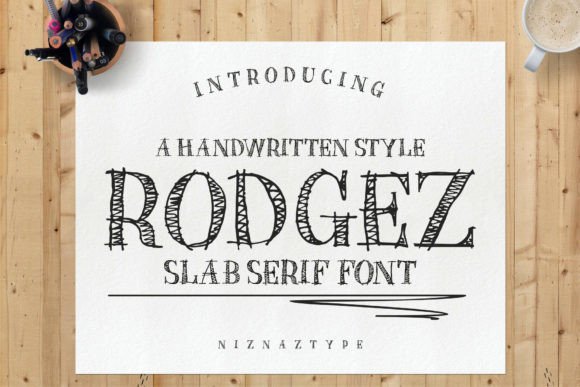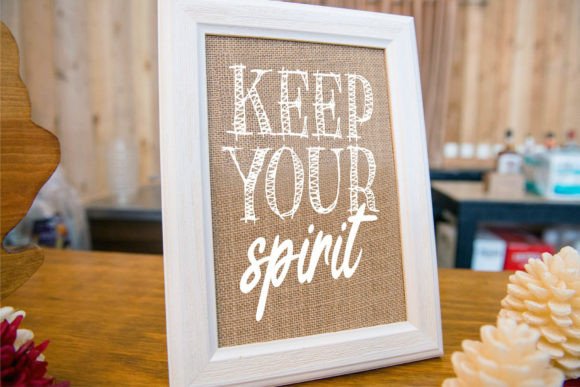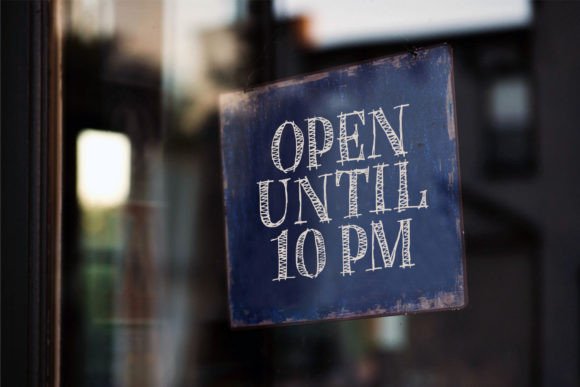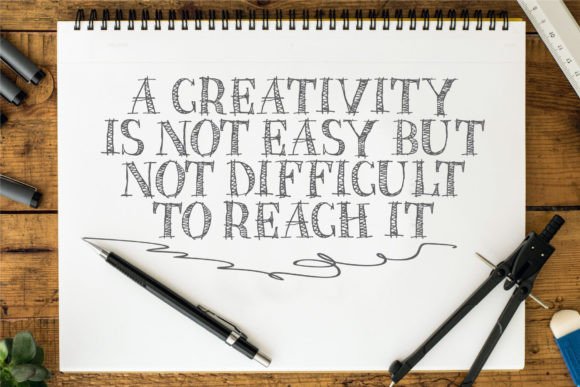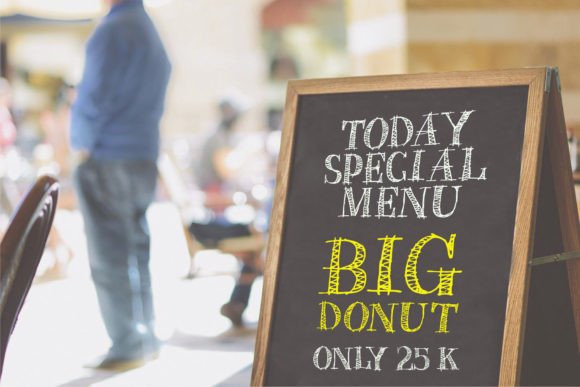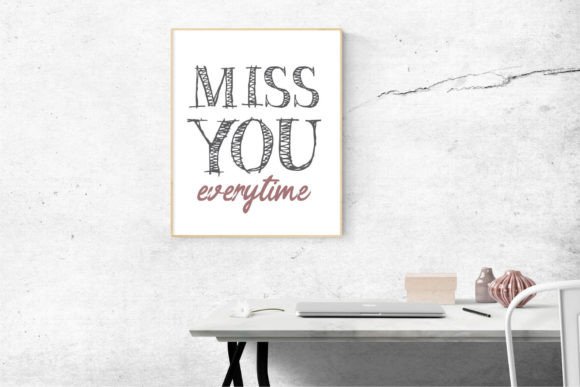
Rodgez Font
About Rodgez Font
Rodgez is a slab serif font created with a handwritten technique. It is perfect for use on social media, posters, stickers, business cards, notebooks and so much more.